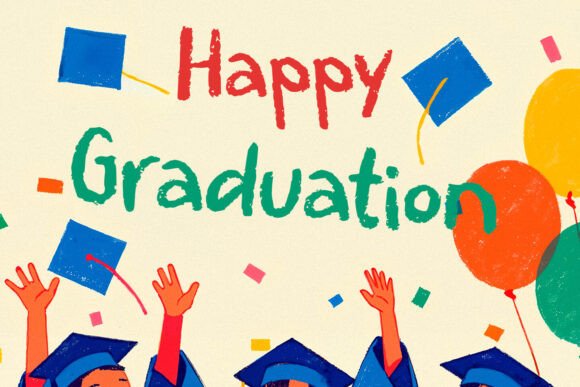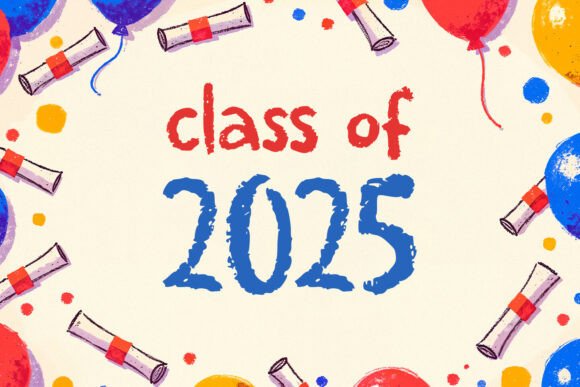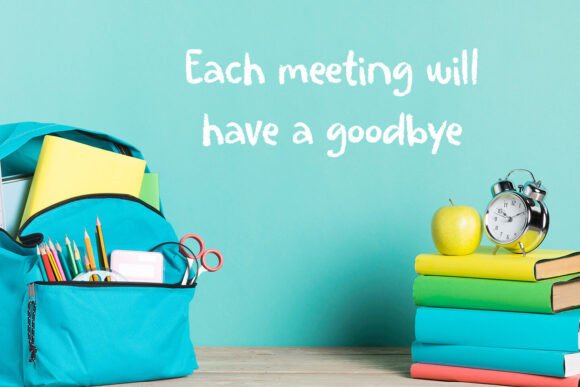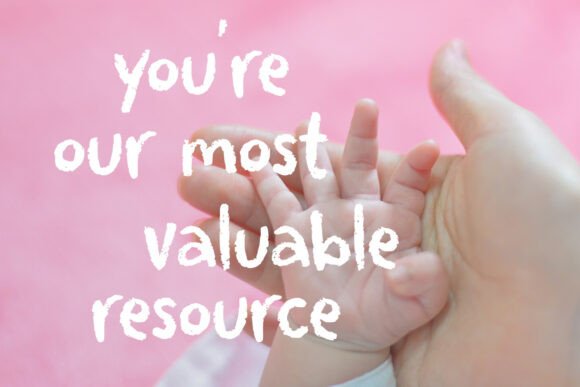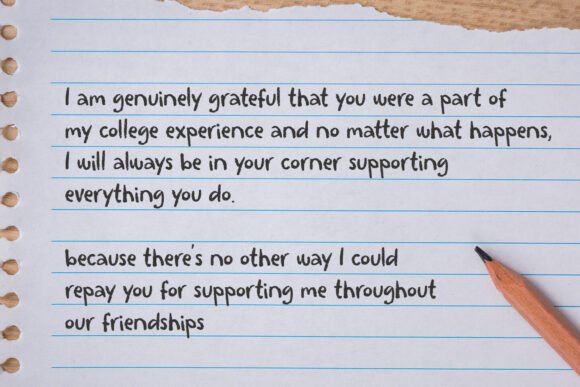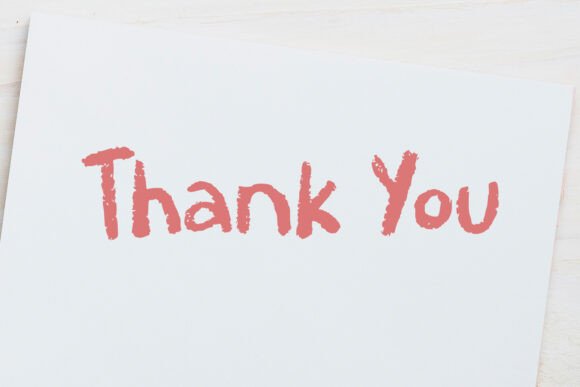
Introduction to Pencilboy Font
Do you remember the excitement of creating a handmade card for a loved one, carefully crafting each letter and detail with precision and love? That same feeling of joy and personal connection is exactly what the Pencilboy Font aims to evoke in your creative projects. This charming display font is more than just a design resource – it’s a key to unlocking the magic of your imagination and bringing a touch of warmth to your work.
Whether you’re a seasoned designer or a DIY enthusiast, the Pencilboy Font is an invaluable asset to have in your toolkit. With its transparent background and high-quality design, it’s perfect for crafting digital designs, presentations, and even greeting cards. And the best part? It’s available for a free download, making it an accessible and affordable addition to your creative arsenal.
As a designer, you know the importance of having the right tools at your fingertips. The Pencilboy Font is a game-changer for any creative project, offering a unique and playful touch that’s sure to delight your clients and make your work stand out from the crowd.
Key Features of Pencilboy Font
- Unique, handwritten style suitable for creative projects, making it a valuable design resource.
- Perfect for designers looking for a distinctive, hand-drawn look to add a personal touch to their creative projects.
Honest Review: Pencilboy Font
I recently came across the Pencilboy Font and I’m excited to share my thoughts on this design resource. As a designer, I’m always on the lookout for high-quality fonts that can elevate my creative projects. The Pencilboy Font definitely delivers in this department.
- Transparent background: The Pencilboy Font has a beautiful transparent background that makes it easy to overlay on any image or design.
- High quality: The font is crisp and clean, with smooth lines that make it perfect for a variety of design projects.
- Limited font styles: While the Pencilboy Font is great for headings and titles, it may not be the best choice for body text.
- May not be suitable for complex designs: Due to its simple design, the Pencilboy Font may not be the best choice for complex designs that require a lot of detail.
Overall, I’m really impressed with the Pencilboy Font and I think it’s a great addition to any designer’s toolkit. Whether you’re working on a creative project or just need a high-quality font for a design, the Pencilboy Font is definitely worth checking out.
Pencilboy Font
The Pencilboy Font is a free design resource ideal for creative projects that require a unique and high-quality font. With a transparent background, this font can be easily customized to fit your design needs.
To get the most out of the Pencilboy Font, use it sparingly and in conjunction with other design elements to avoid overwhelming your design. Experiment with different font sizes and colors to achieve the desired effect.
The Pencilboy Font is ideal for:
- Children’s book illustrations
- Hand-drawn style designs
- Whimsical and playful branding